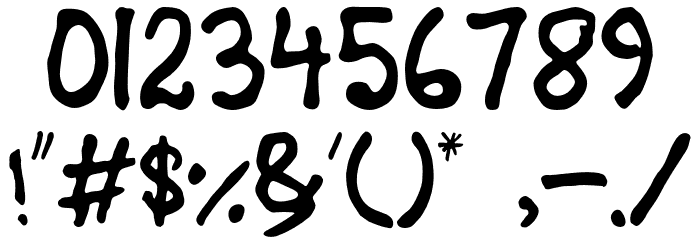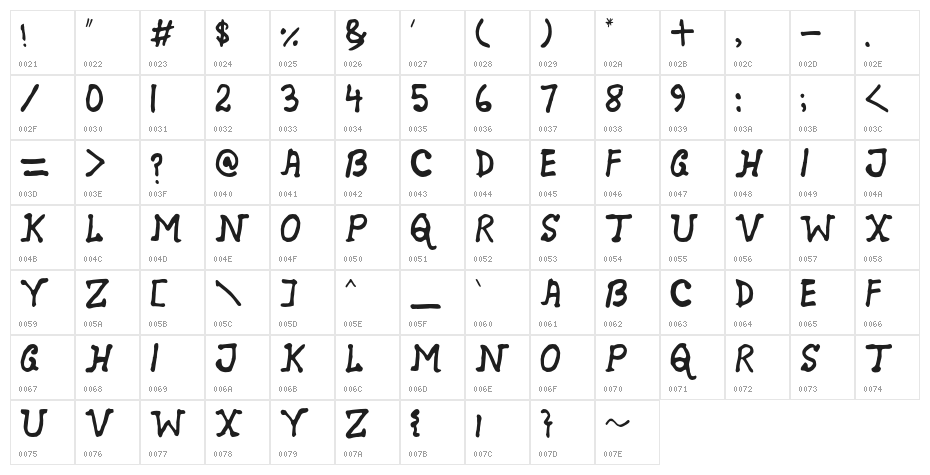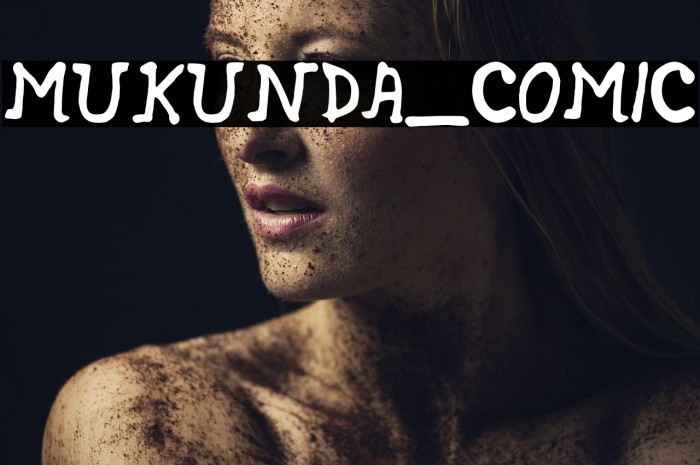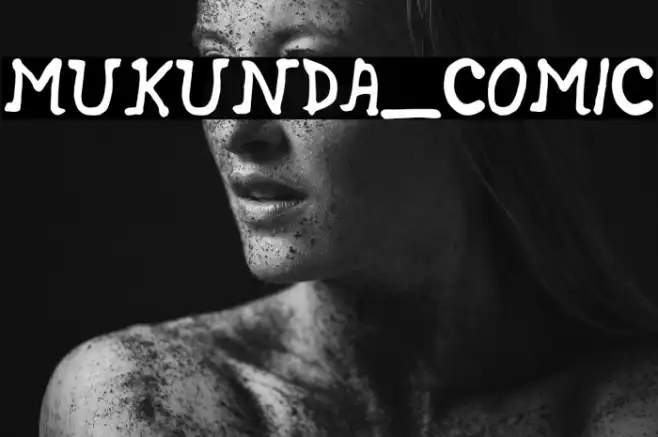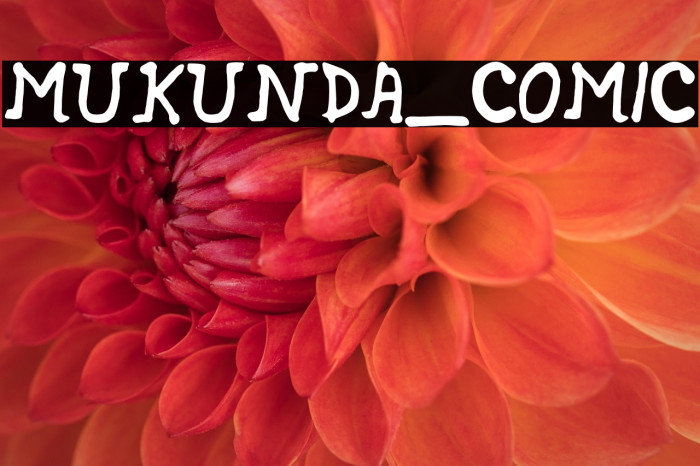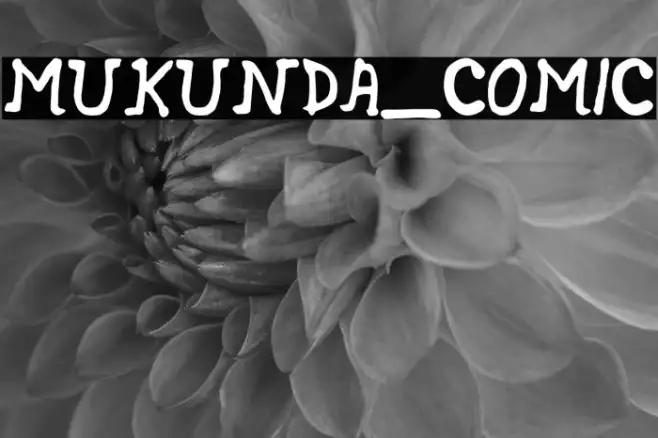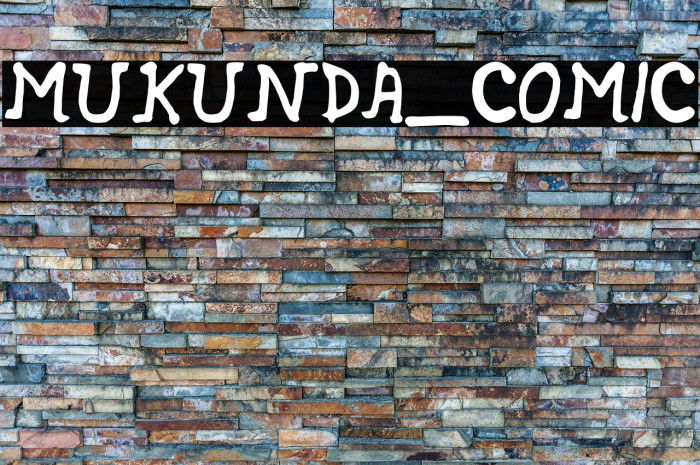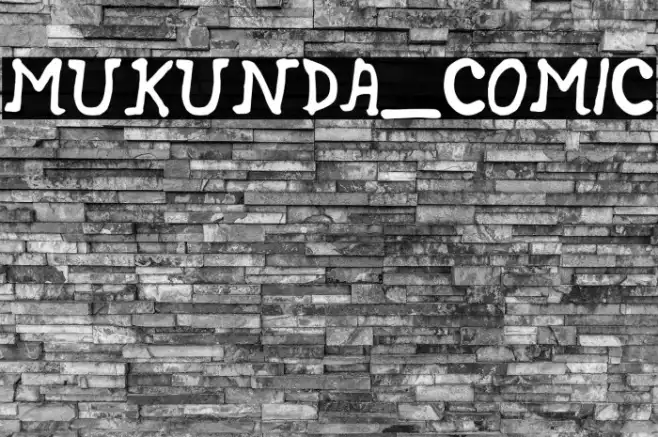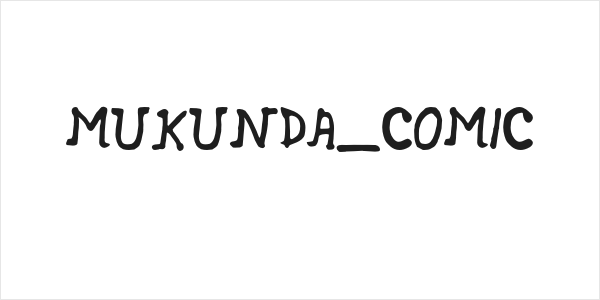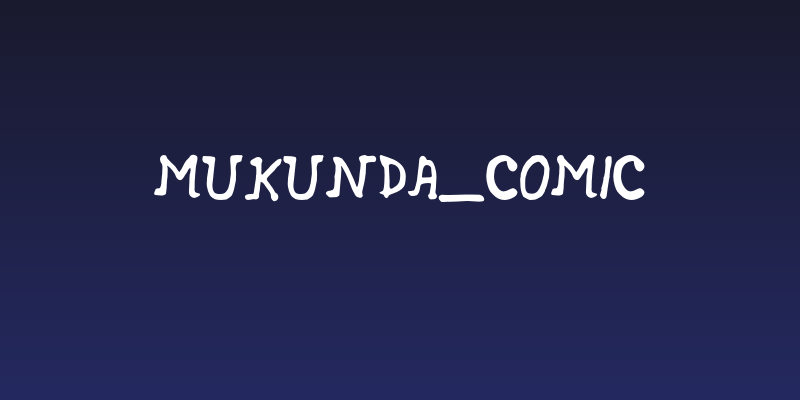
MUKUNDA_COMIC Font
MUKUNDA_COMIC Description
This playful and bold font features a comic-style design with a hand-drawn appearance. The characters are slightly irregular, giving it a whimsical and informal feel. The uppercase and lowercase letters maintain a consistent style, with rounded edges and varying stroke thickness that adds to its charm. The numbers and special characters are equally expressive, making this font suitable for creative and fun projects. Its unique style captures attention and conveys a sense of humor and lightheartedness.
| Proposed Projects | Ideal for comic books, children's books, playful branding, and informal invitations. |